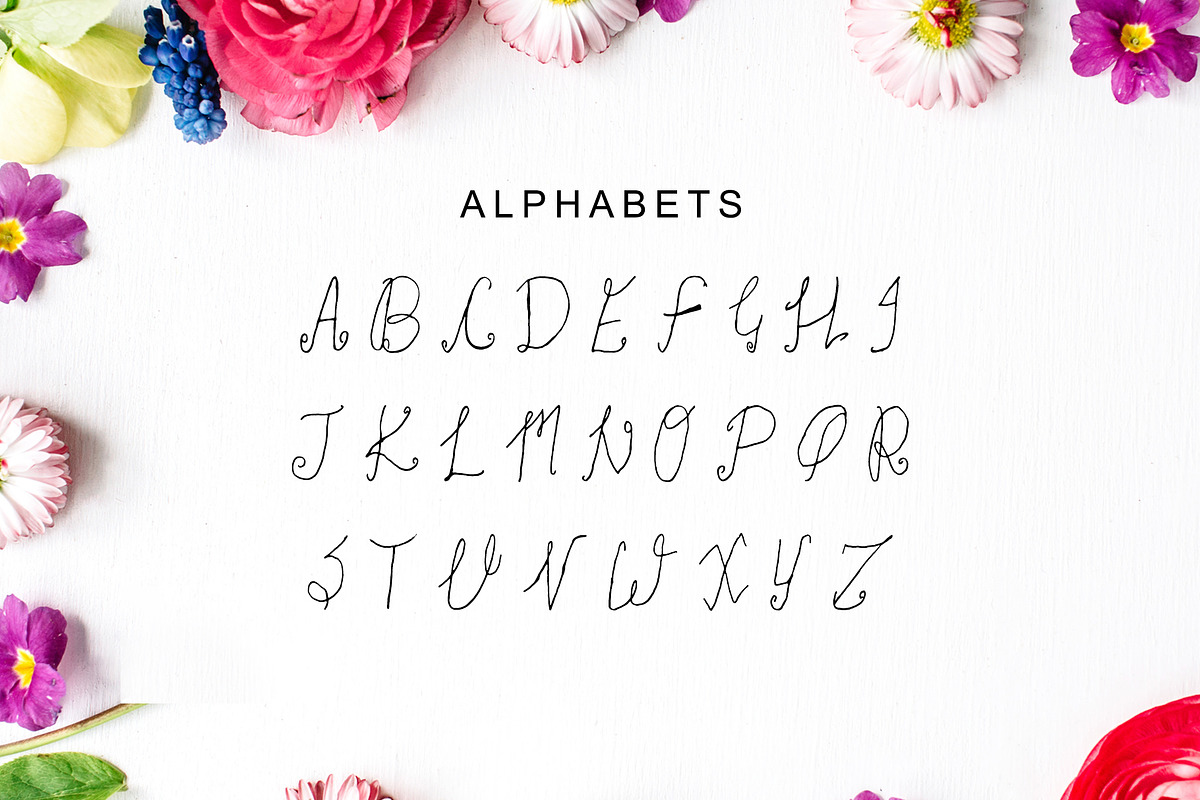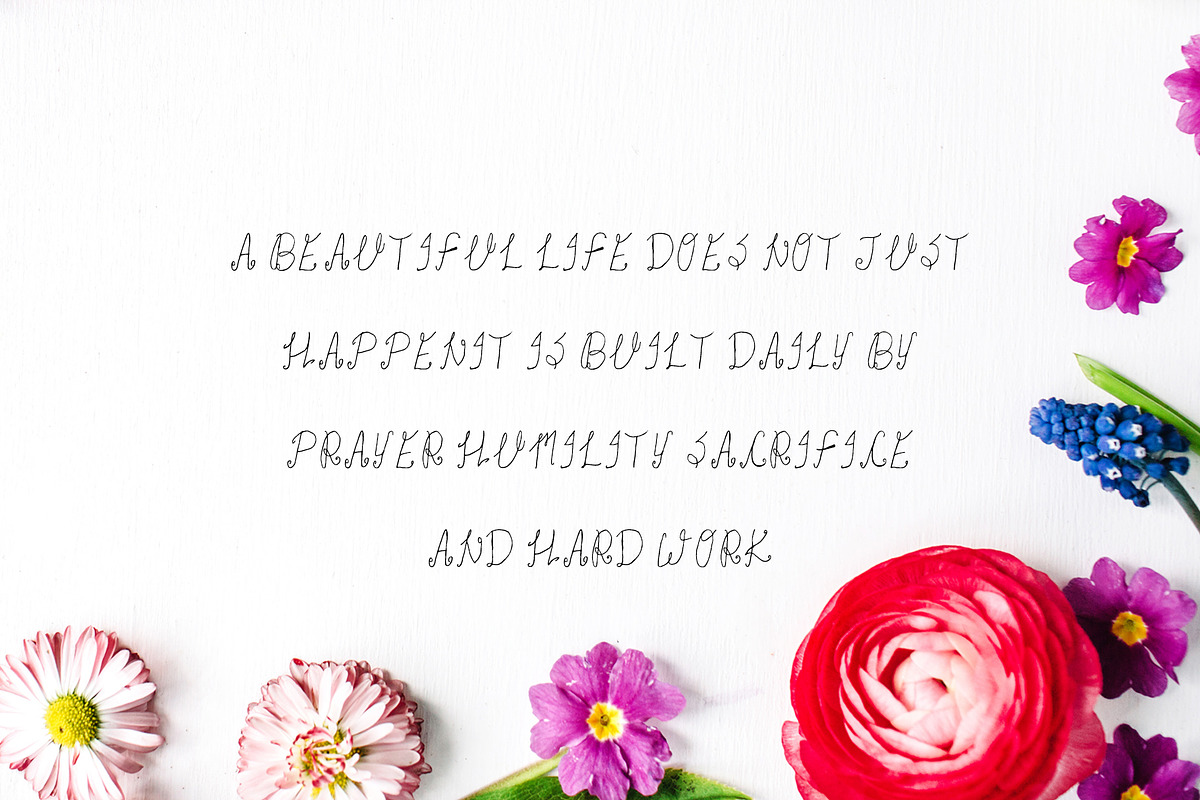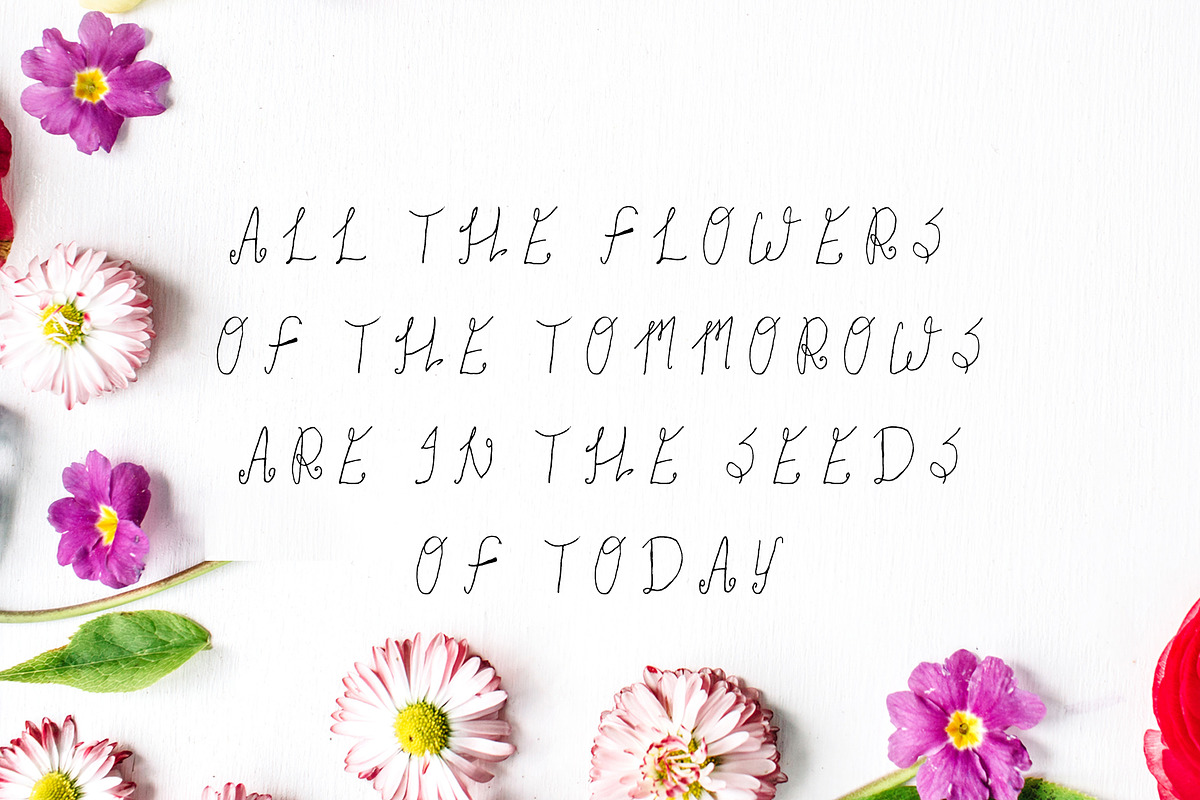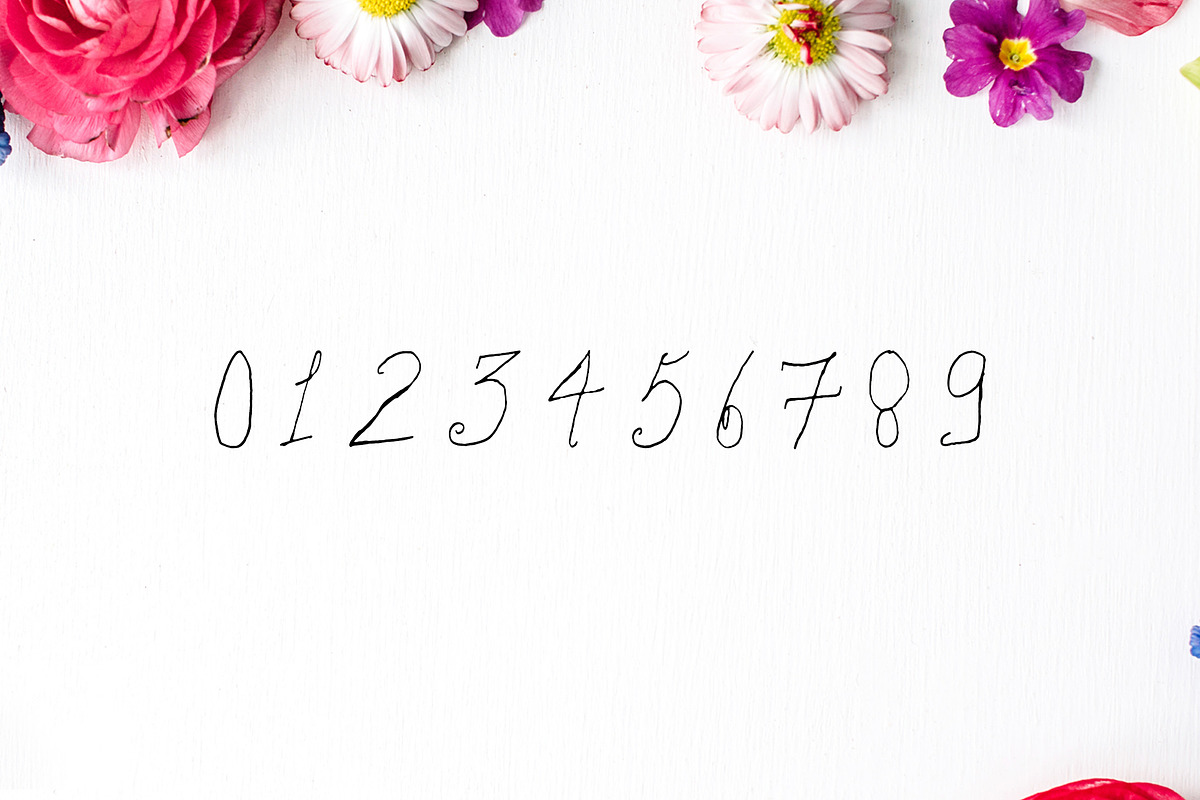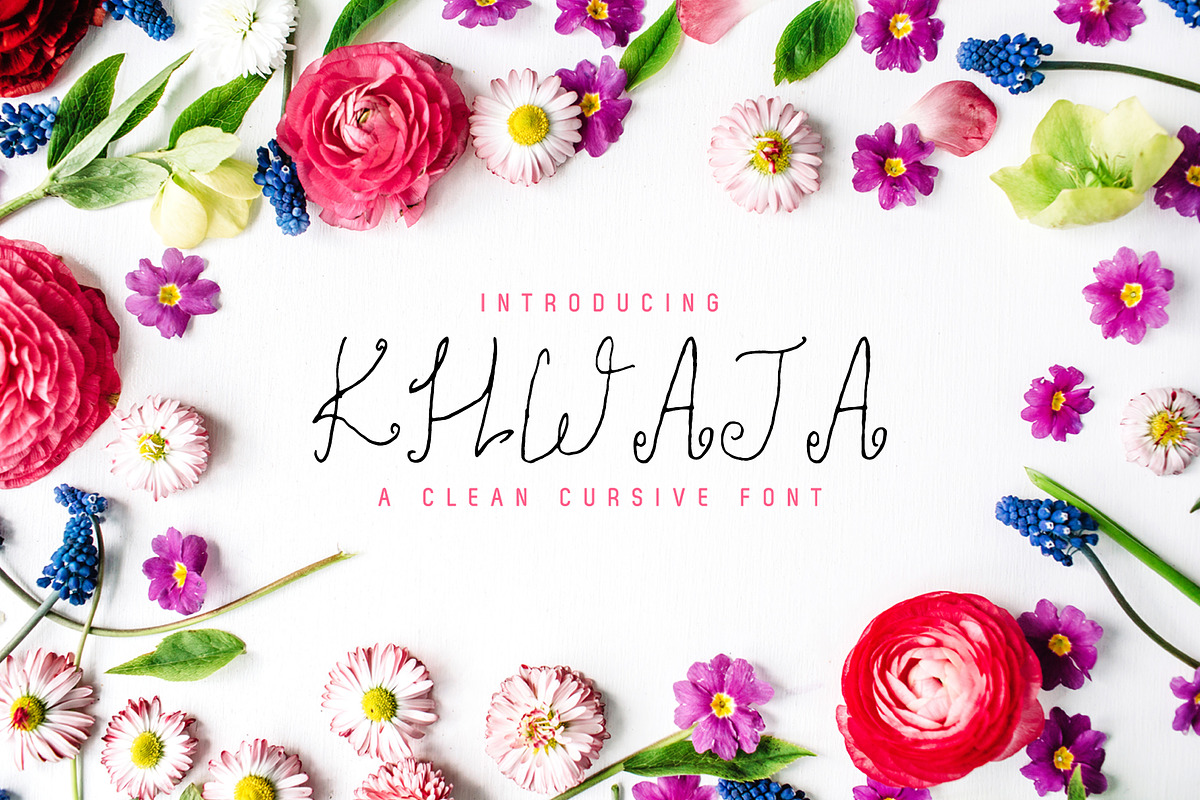
Khwaja Script 2 Font Family Pack
Khwaja Script 2 Font Family Pack by Creativetacos is a font selected for branding, posters, packaging, typography.
- Khwaja Script Typeface is a clean & classy, beautiful handwritten brush style font that contains 3 weights, it is perfect for creating authe
- Regular and Italic Weights
- Extras: Uppercase Letters and Numbers
Khwaja Script 2 Font Family Pack by Creativetacos fits naturally into Branding, posters, packaging, typography.